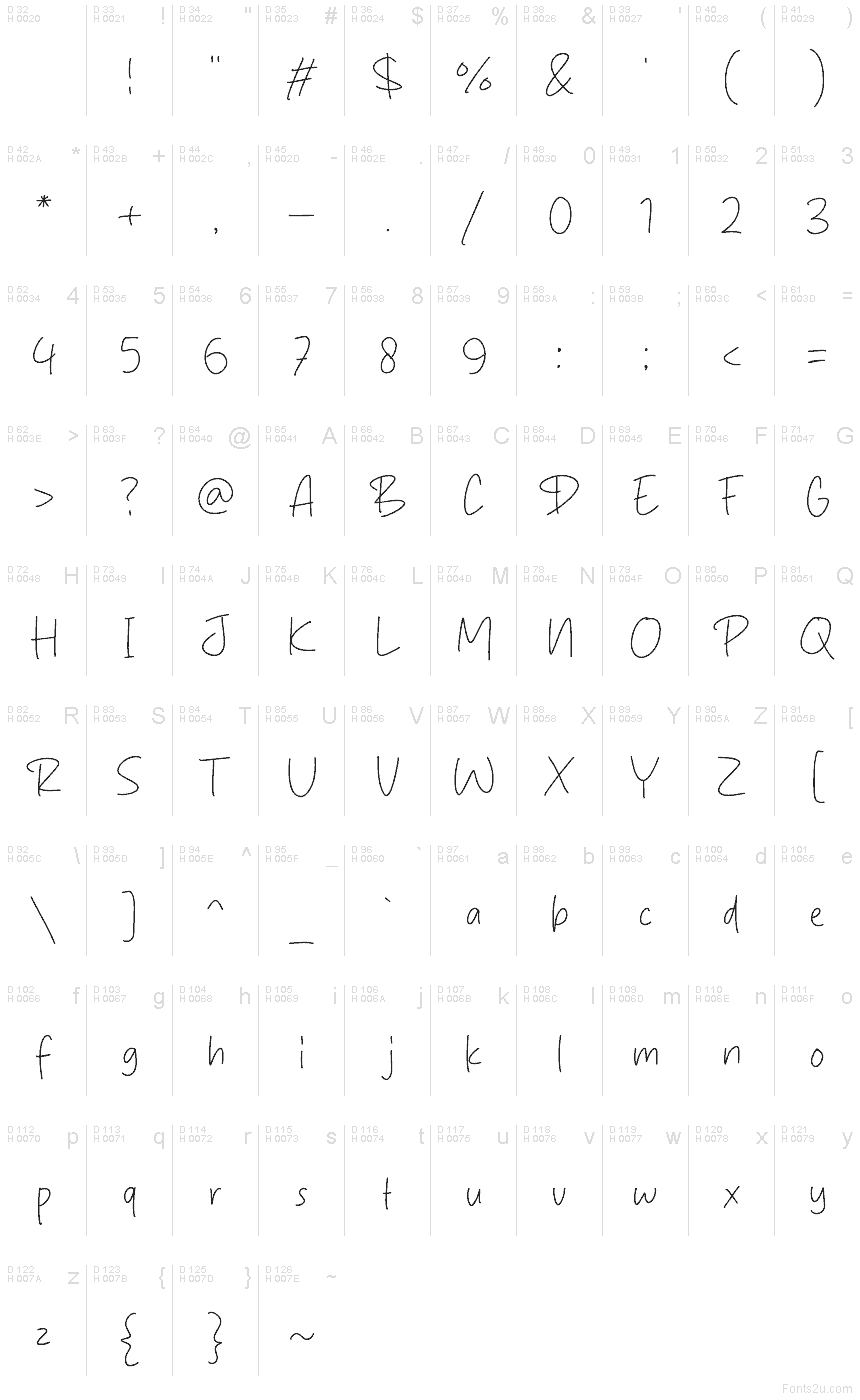
Rocky Modish
Rocky Modish font by Origin Type is a light handwritten font with a casual, modern look. It showcases a relaxed elegance and friendly vibe, offering a unique presence that combines artistic excellence with clarity.
This free handwritten font is suitable for quotes, notes, letters, logos, branding projects, product packaging designs, social media posts (Facebook & Instagram), advertising posters and flyers. Use it also on banners headed to shopping malls or hospitals as well as magazine and book covers.